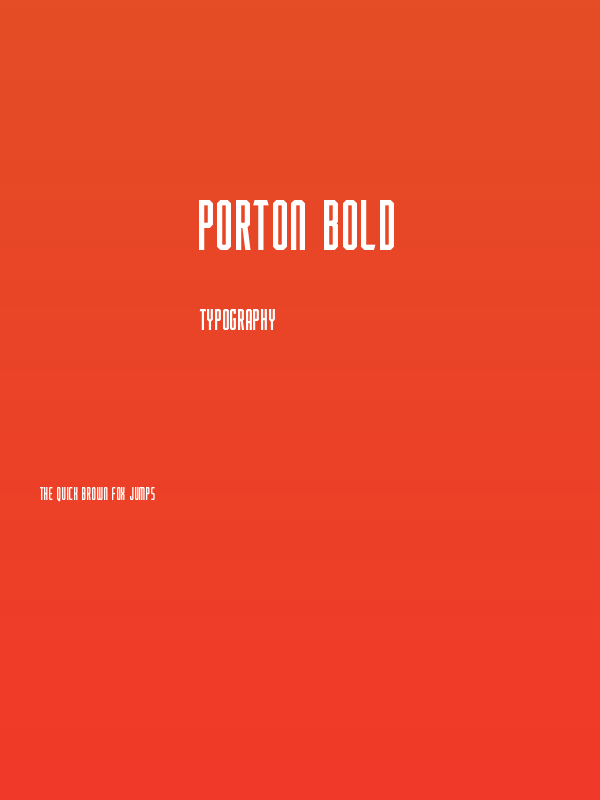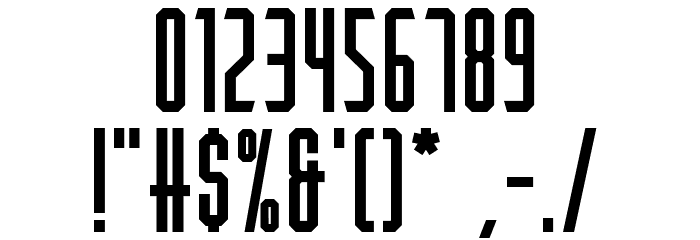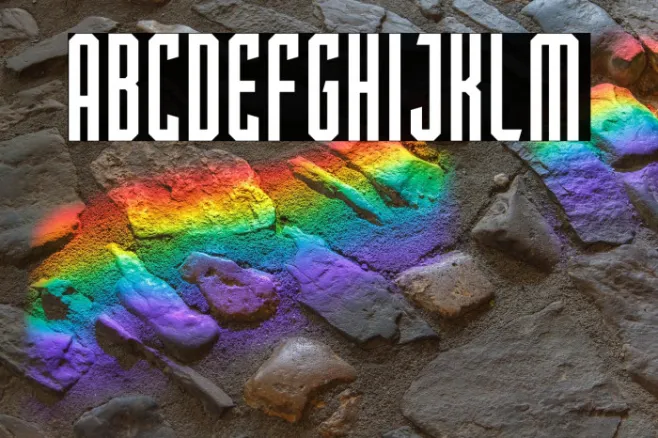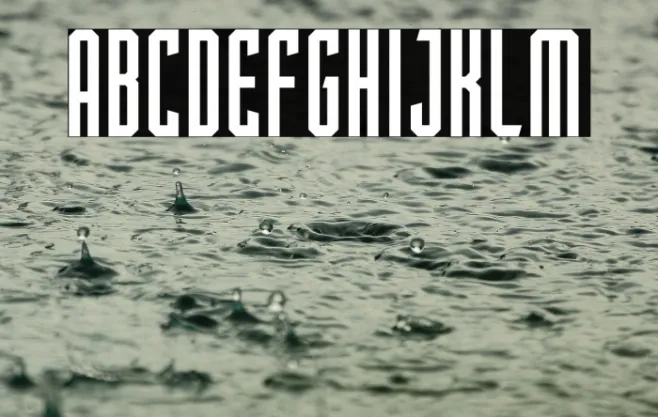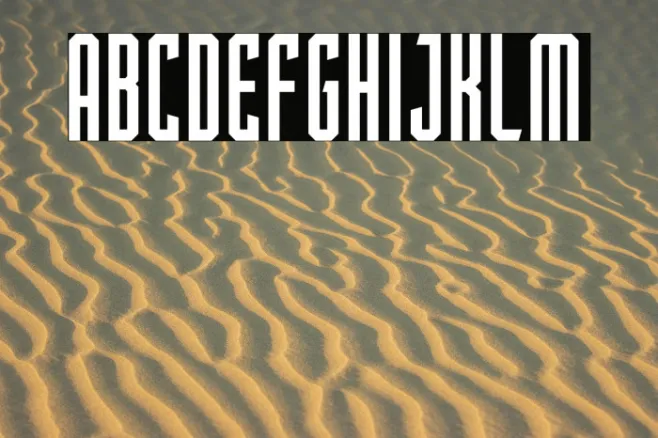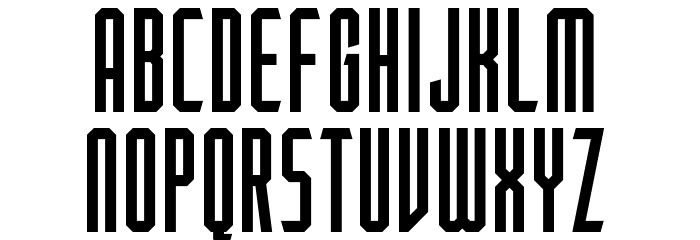
Porton Bold Font
Porton Bold Description
This font features a bold, geometric design with a strong presence. The characters are tall and narrow, with sharp angles and clean lines that give it a modern and assertive look. The uppercase letters are particularly striking, with a uniform height and consistent stroke width that enhances readability. The numerals and special characters maintain the same boldness and geometric style, making them suitable for various applications. The overall design is both functional and stylish, ideal for making a statement in any project.